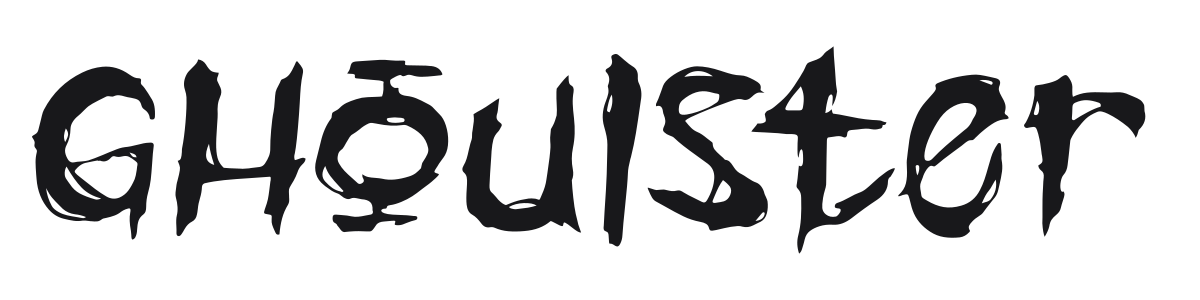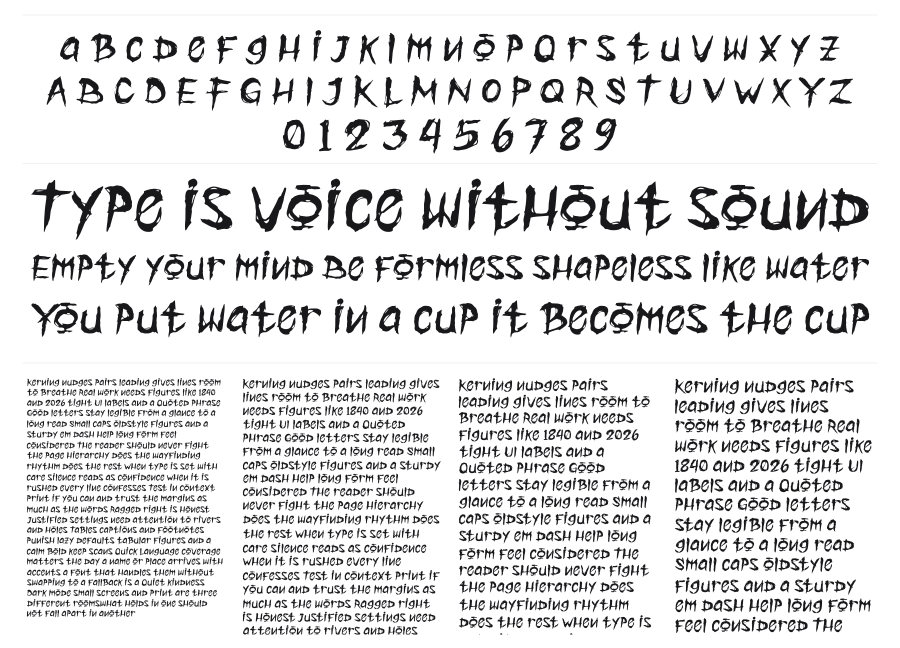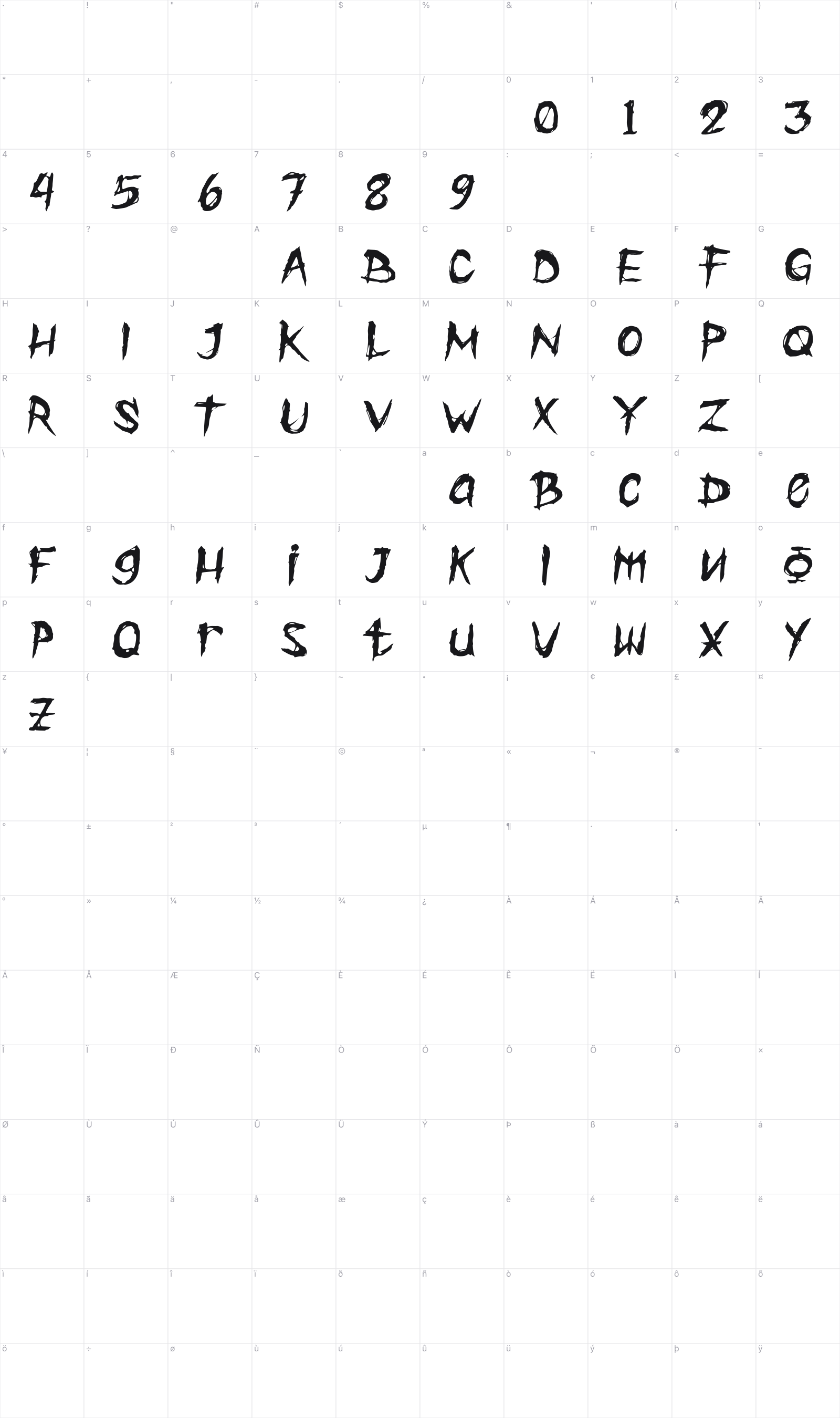
Ghoulster
Ghoulster is a heavy distressed display font soaked in horror atmosphere, with cracked and eroded strokes that look scraped from a rotting surface. The irregular character construction and uneven texture give it an organic, hand-defaced quality that feels genuinely unsettling rather than just decorative. Best used large, where the gritty detail reads clearly.